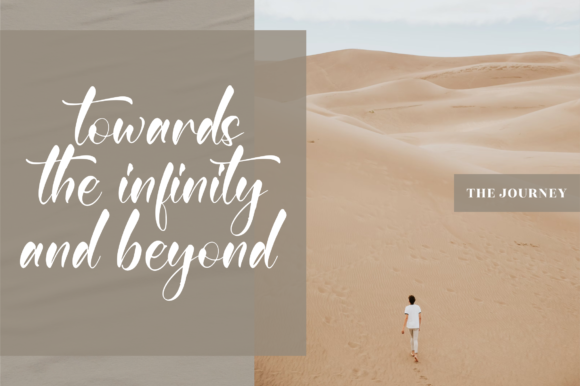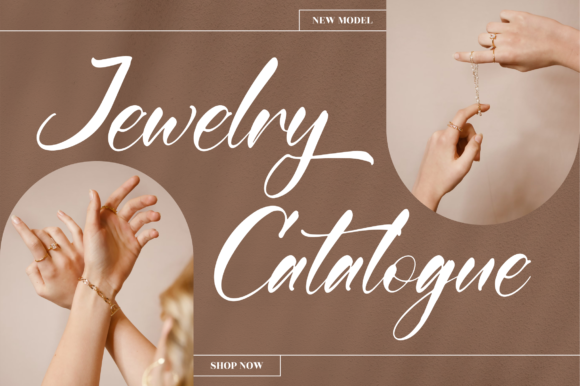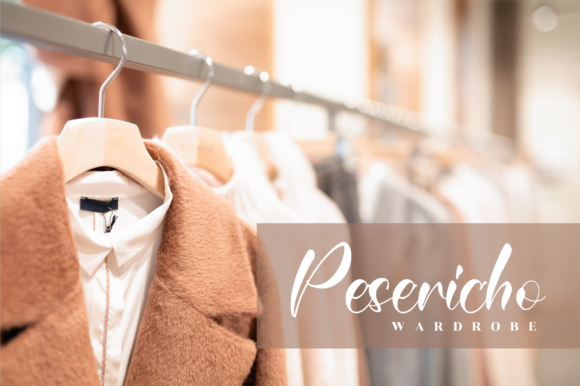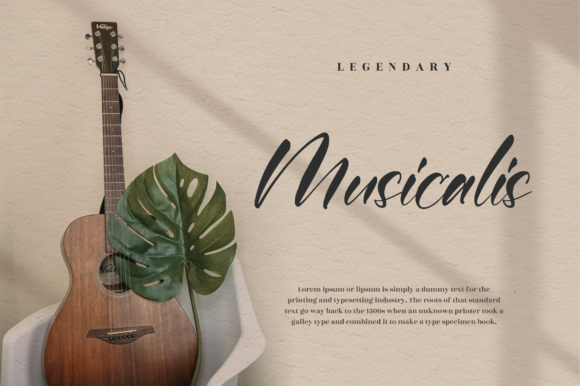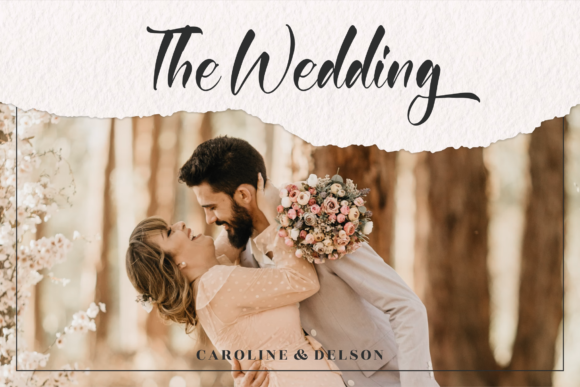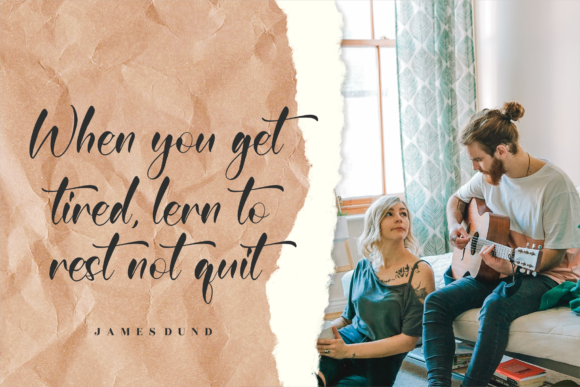
Introduction to Henrietta Martins Font
Henrietta Martins is a beautiful and light handwritten font with a unique feel and a stunning impact.
Key Features of Henrietta Martins Font